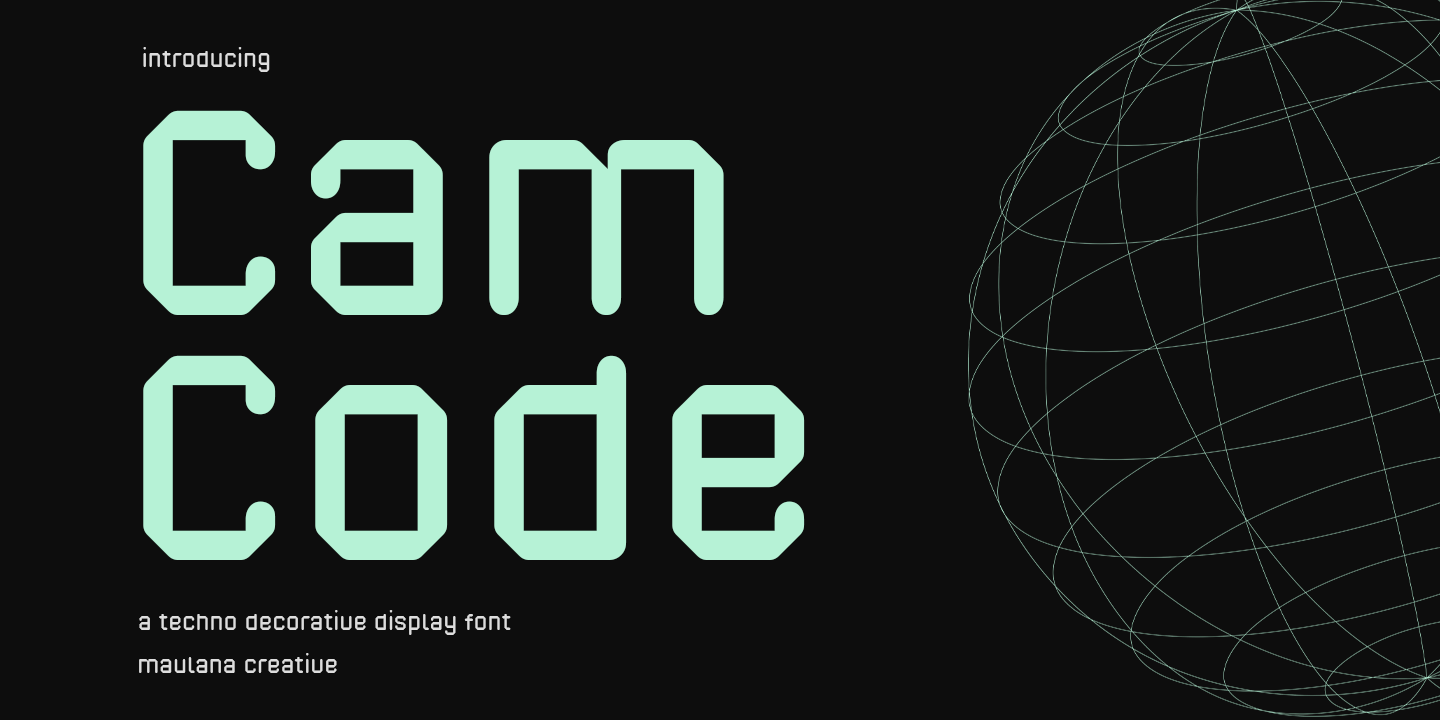
If you're looking for a bold, industrial-inspired typeface with a modern, tech-savvy aesthetic, MC Camcode Font Free Download is the perfect choice for your creative projects. This unique font features clean, geometric letterforms with a utilitarian style, making it ideal for branding, logos, labels, product packaging, posters, and designs that need a futuristic, barcode-inspired look. Its sleek design adds a distinctive, high-tech vibe to any visual identity.
MC Camcode Font balances functional clarity with bold personality, ensuring excellent readability across both print and digital applications. It includes multilingual support and a range of glyphs, offering designers flexibility to create unique, professional typography. Whether you're crafting a tech product brand or an urban-inspired campaign, this font delivers sharp, modern style.